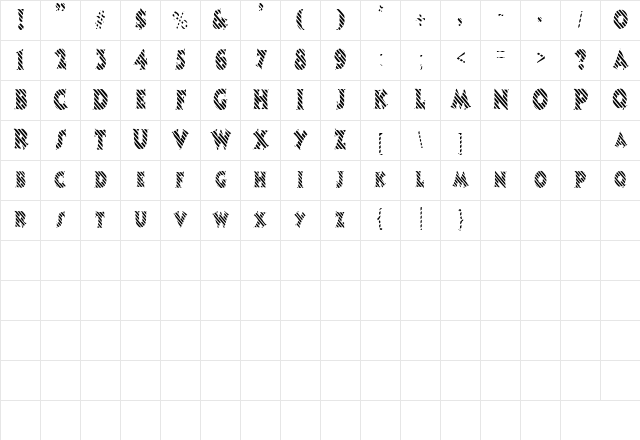
CandyStripeCondensed Regular
CandyStripeCondensed Family
CandyStripeCondensed Regular
CandyStripeCondensed Regular Font Preview
CandyStripeCondensed Regular Uppercase Preview
CandyStripeCondensed Regular Lowercase Preview
CandyStripeCondensed Regular Numeric Preview
CandyStripeCondensed Regular Character Map
Complete CandyStripeCondensed Regular glyph index. Displaying only characters natively supported by CandyStripeCondensed Regular font.
CandyStripeCondensed Regular Character Map
Design Context for CandyStripeCondensed
CandyStripeCondensed is a composed and adaptable typeface that performs quietly and consistently across a wide range of design contexts. Its narrow stance lets it pack a punch even in space-constrained designs.